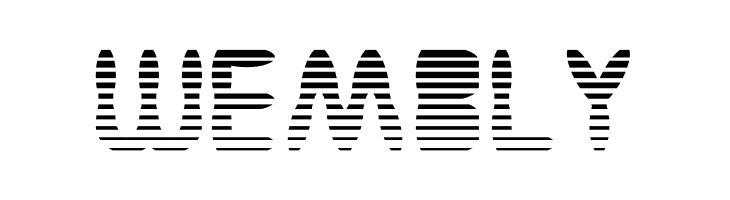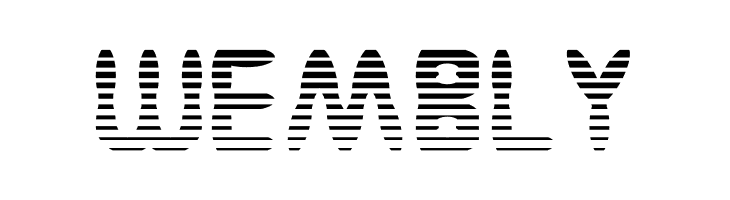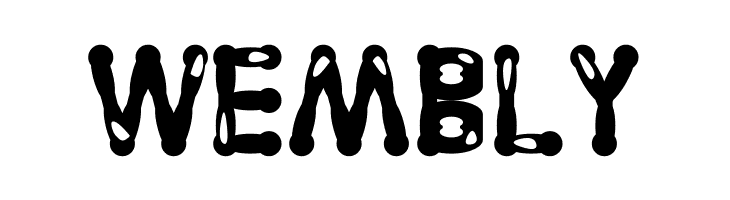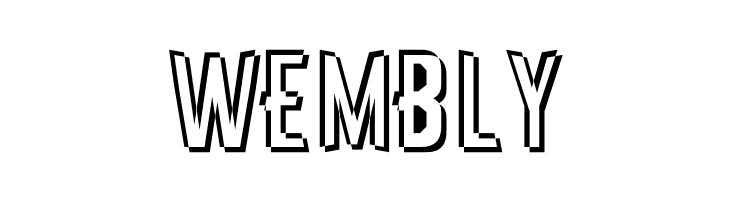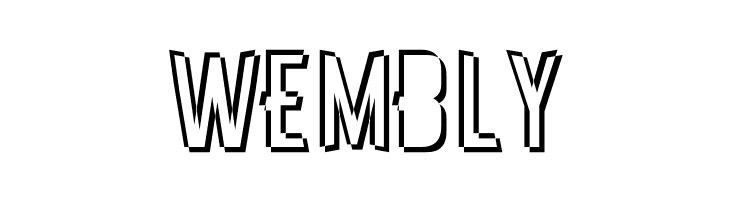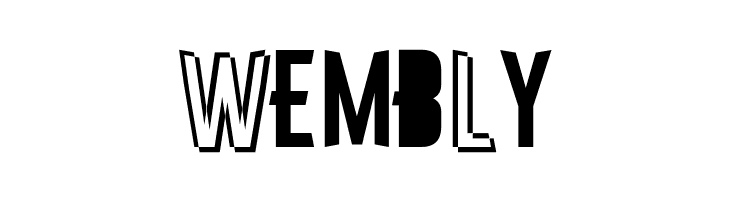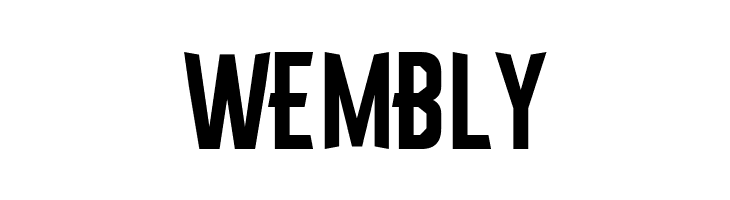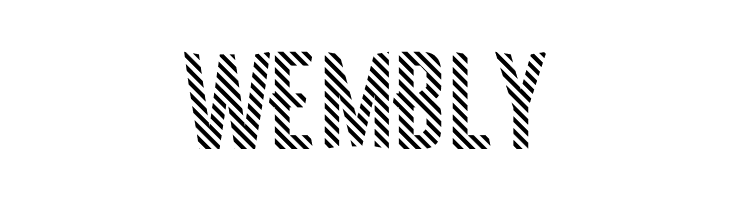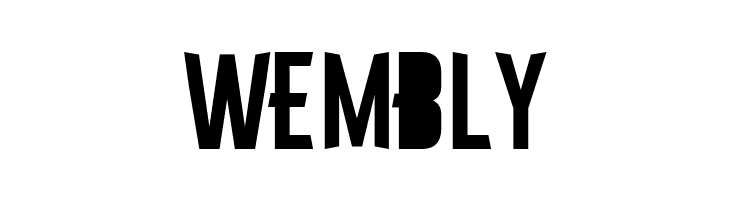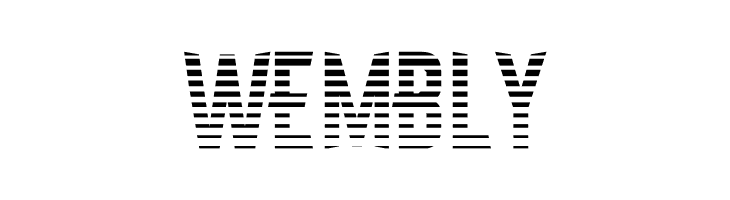
A modern, striped font with a digital and futuristic style.
A bold, modern font with a unique striped pattern across each character.
A bold, playful font with a liquid-like, dynamic appearance.
A bold, decorative font with a unique striped pattern and vintage flair.
A bold, decorative font with a unique striped pattern and high contrast.
A bold, modern font with a mix of solid and outlined characters, perfect for impactful designs.
A bold, modern sans-serif font with thick, uniform strokes and slightly condensed letterforms.
A bold, decorative font with a unique diagonal stripe pattern.
A bold, geometric font with a strong, modern presence.
A bold, striped font with a modern and dynamic appearance.
A bold, decorative font with a double-stripe design and modern geometric style.
A bold, dynamic font with a mix of solid and outlined characters, perfect for striking designs.
Bold, geometric, and condensed font with a modern style.
A bold, decorative font with a double-stripe shadow effect for a 3D look.
A bold, decorative font with diagonal stripes for a dynamic look.
A bold, modern font with thick strokes and tight spacing, perfect for impactful designs.
A modern, striped font with bold, geometric characters.
A bold, decorative serif font with star motifs and a vintage flair.
A bold, wavy font with a liquid-like texture, perfect for dynamic designs.
A bold, decorative serif font with a playful, vintage-inspired style.
A bold, striped font with a modern, industrial look.
A bold, striped decorative font ideal for eye-catching designs.
A bold, playful font with unique cut-out shapes and rounded strokes.
A bold, decorative font with unique textures and patterns.
A bold, decorative serif font with star-like cutouts for a playful touch.
A bold, decorative font with a playful, three-dimensional style.
A bold, decorative font with hollow centers and wavy outlines, featuring playful heart details.